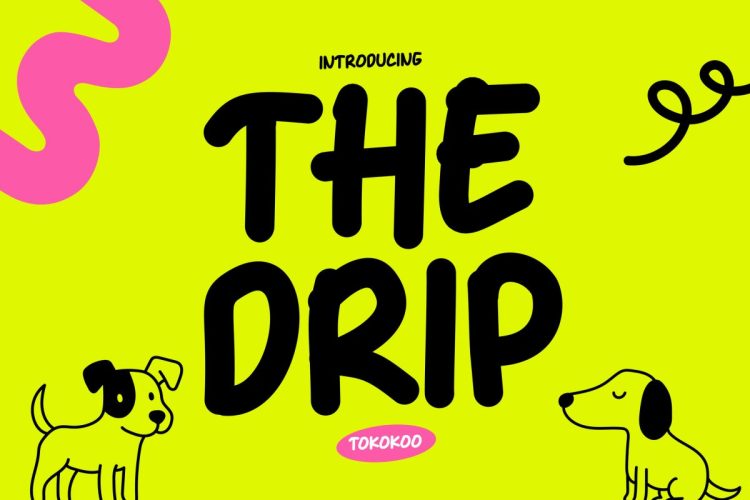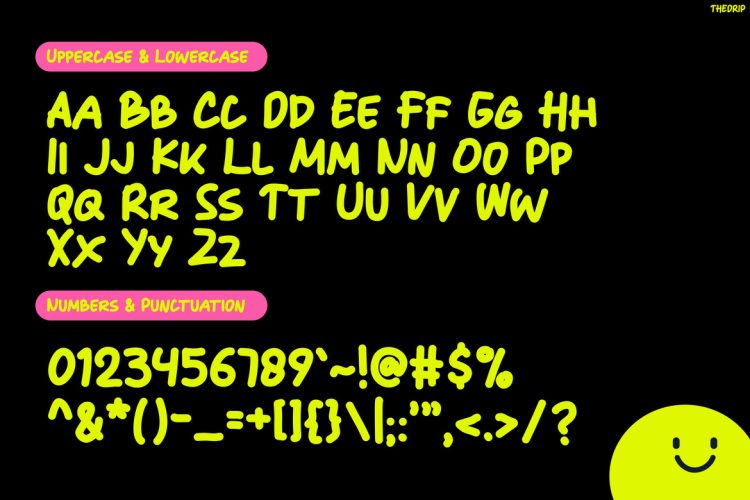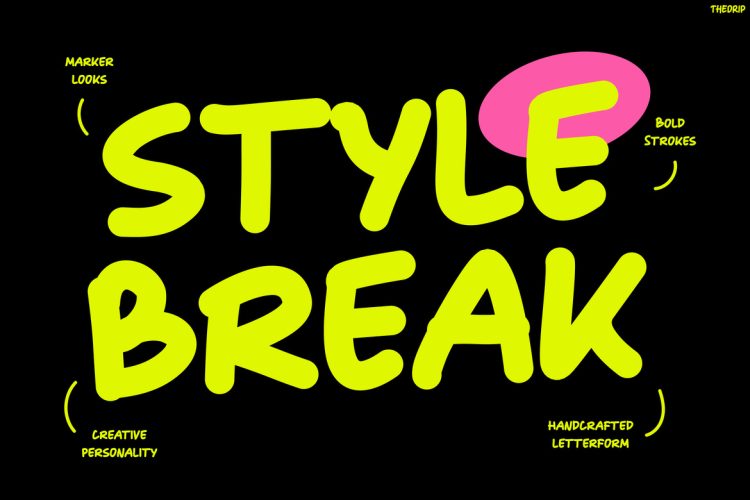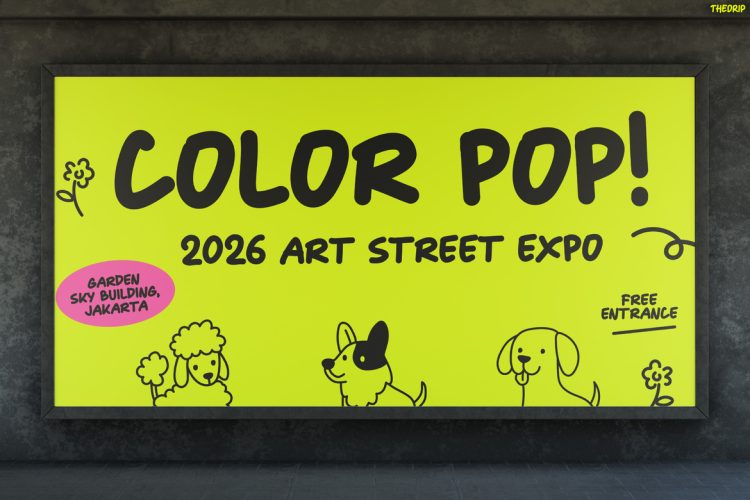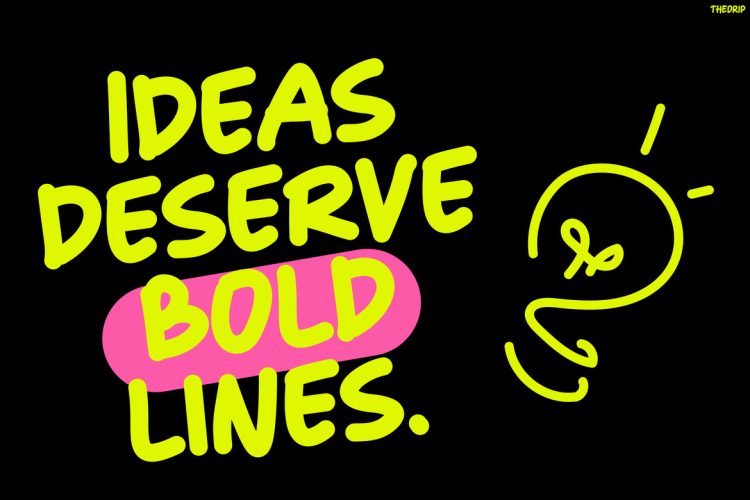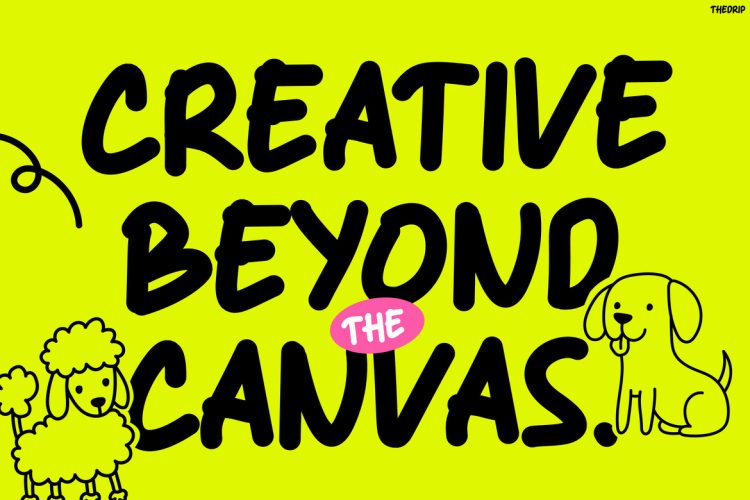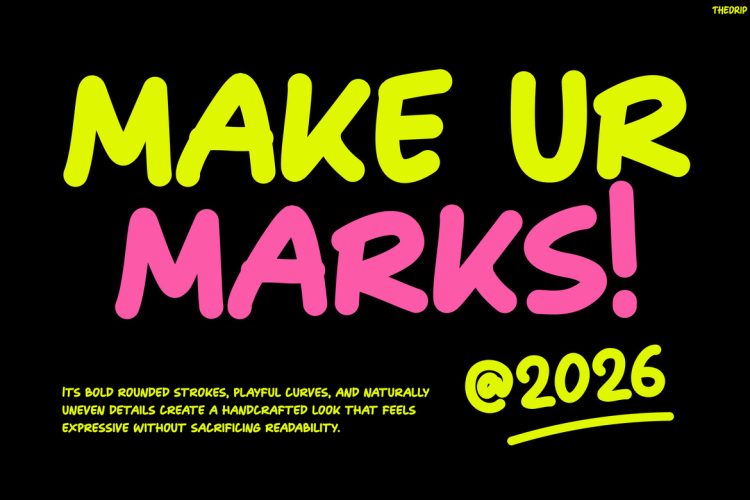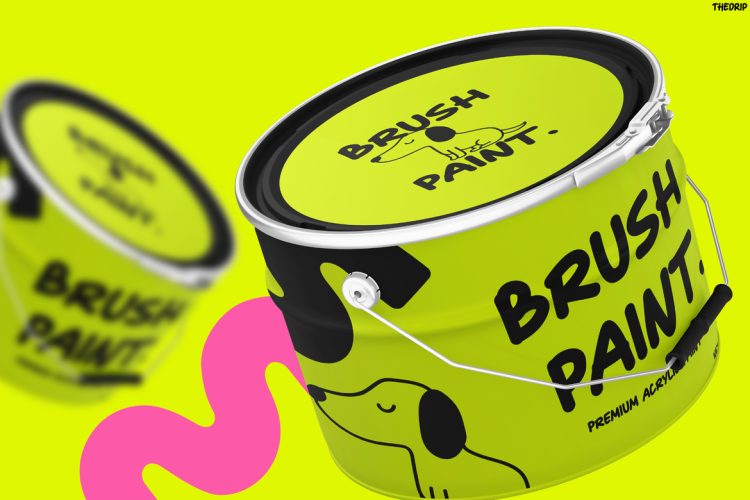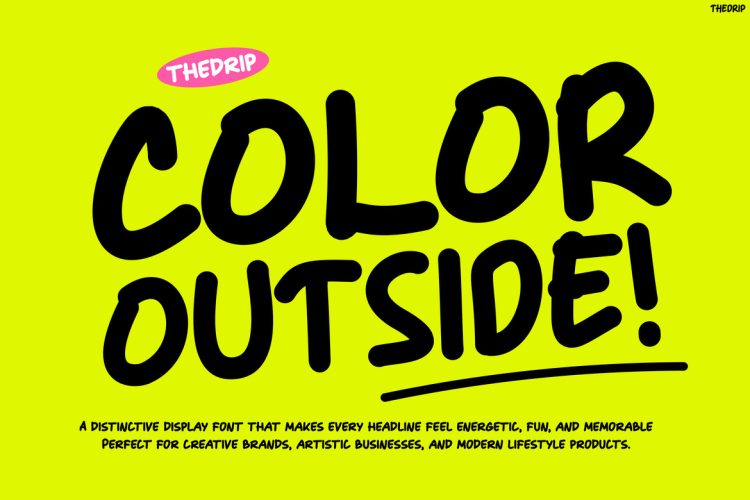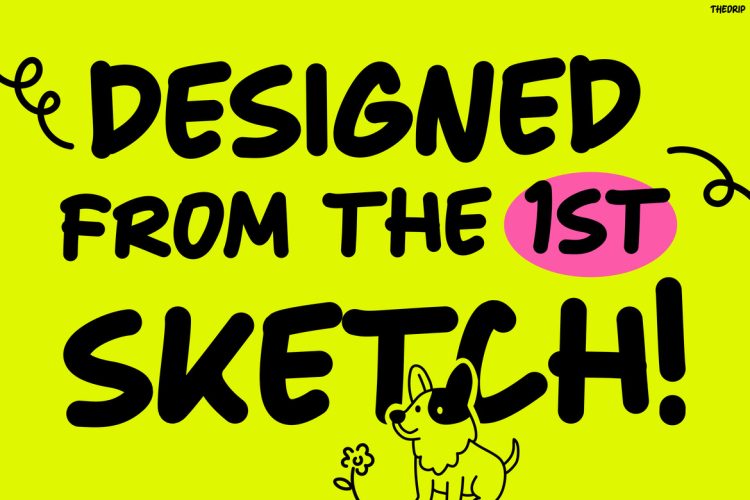
THEDRIP โย Street-Inspired Display Font for Loud, Playful & Creative Designs
Kids Font THEDRIP is a bold graffiti-inspired display font bursting with playful energy and creative attitude. Featuring chunky handwritten letterforms, smooth curves, and expressive strokes, it delivers a fresh street-style look that’s impossible to ignore. Moreover, its vibrant personality instantly grabs attention while keeping every word clear and readable. As a result, your headlines feel louder, bolder, and packed with youthful excitement.
Why You’ll Love It
Additionally, Kids Font THEDRIP is made for creators who want typography with confidence and fun. Whether you’re designing kids branding, colorful packaging, event posters, YouTube thumbnails, or social media graphics, this font fits naturally into bold visual concepts. Furthermore, its playful style pairs perfectly with doodles, illustrations, and vibrant color palettes. Besides that, the handcrafted look adds an authentic touch that makes every project feel more personal. Therefore, your designs become more engaging, memorable, and full of creative energy.
Kids Font THEDRIP Perfect For
Kids branding, toy packaging, school projects, posters, stickers, YouTube thumbnails, social media graphics, event flyers, comics, children’s books, creative logos, apparel, merchandise, stationery, and fun marketing campaigns.
Let Your Creativity Run Wild